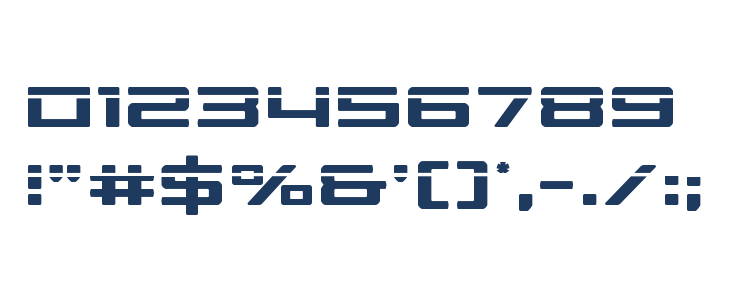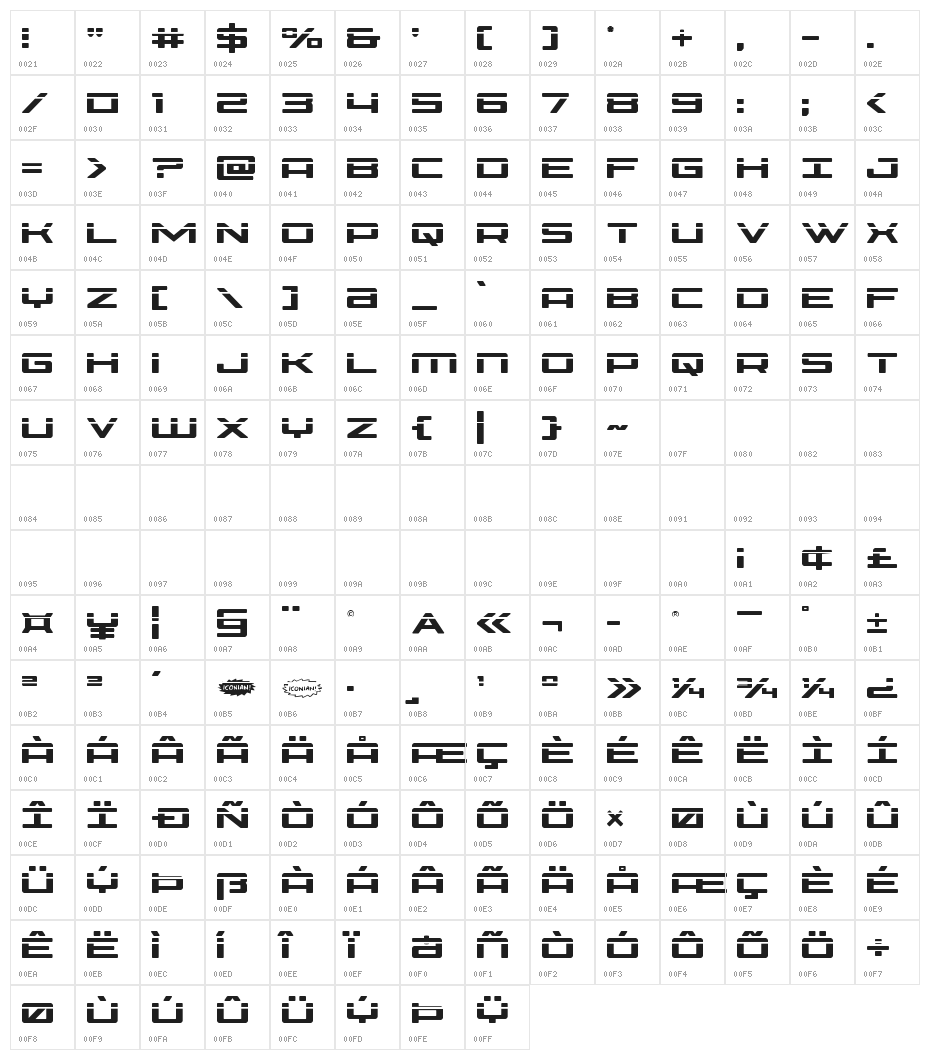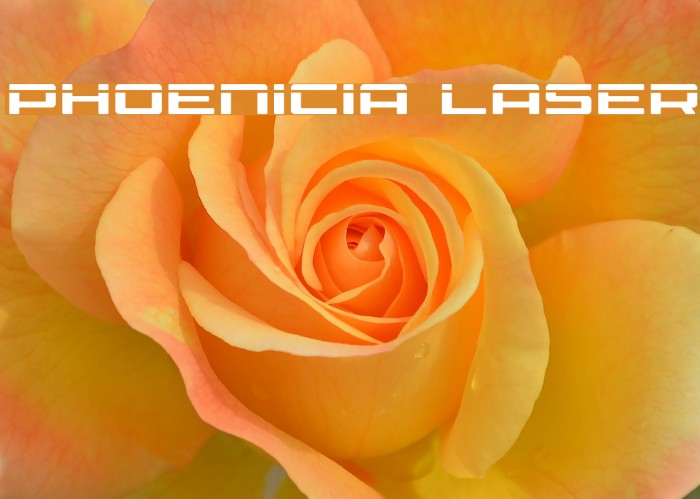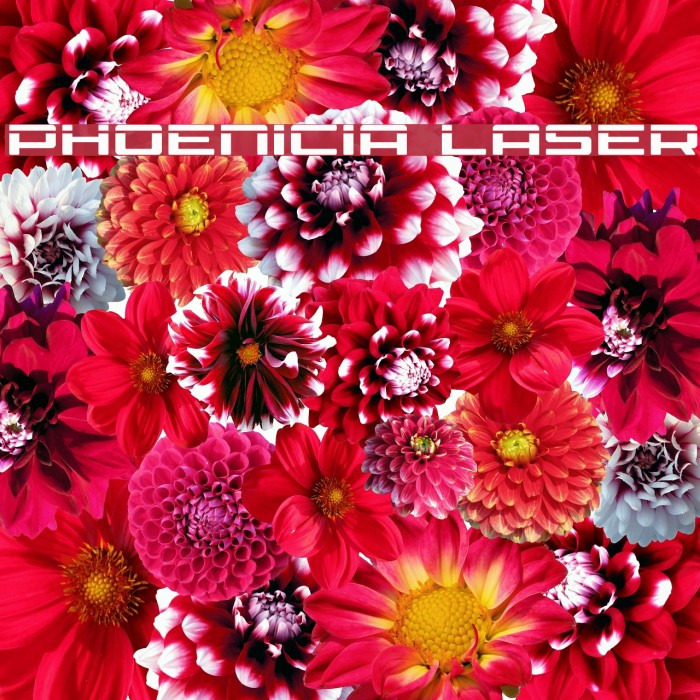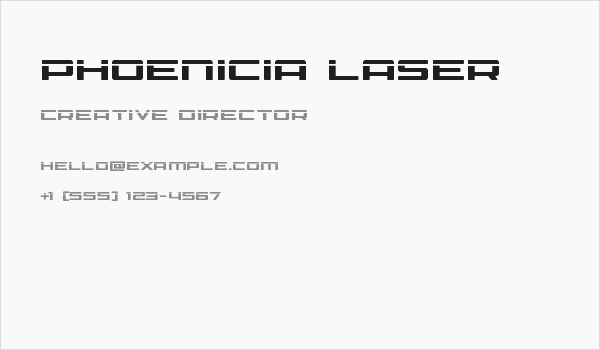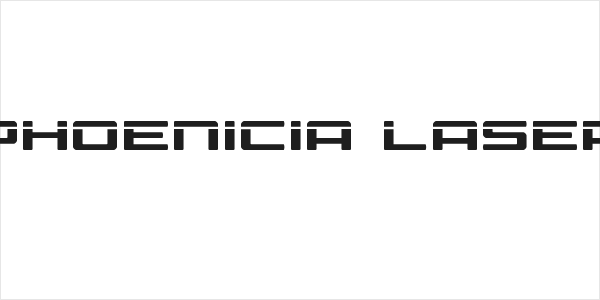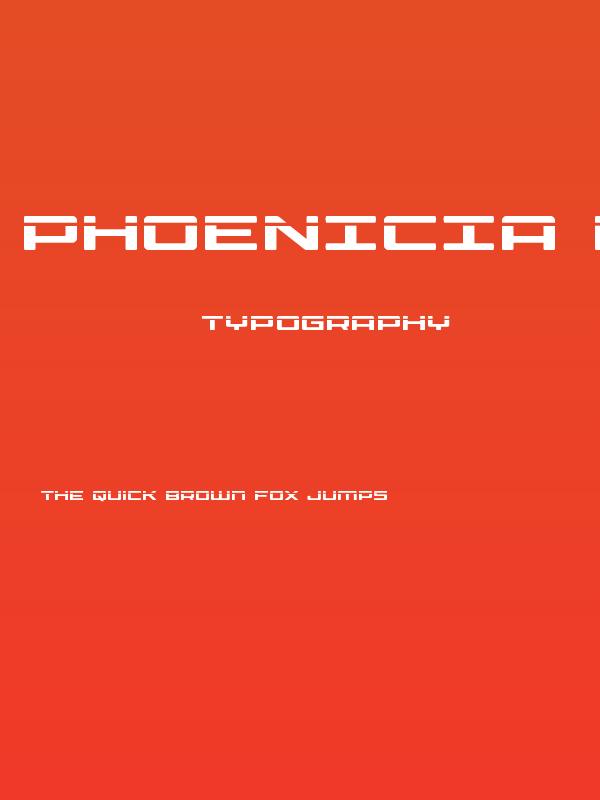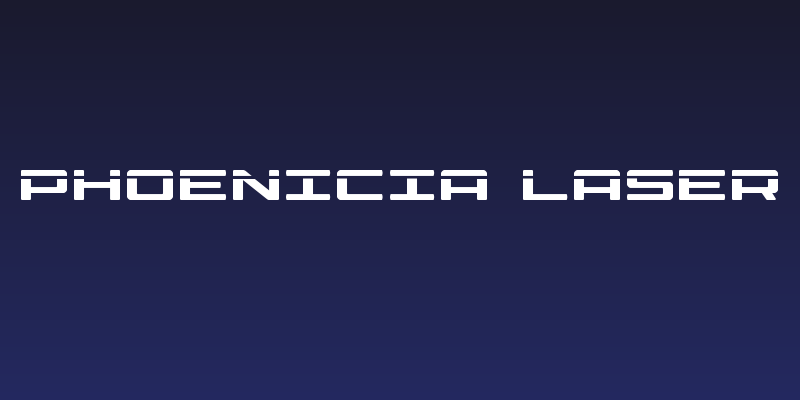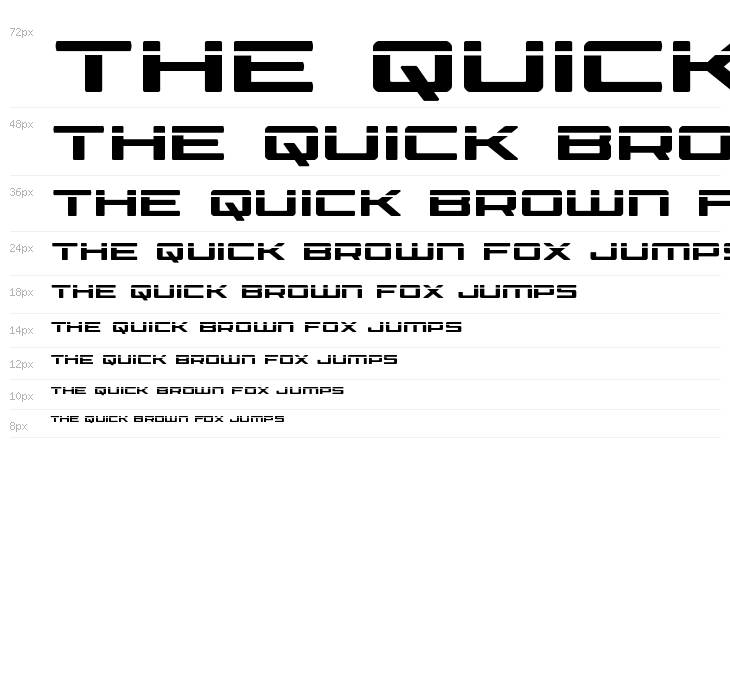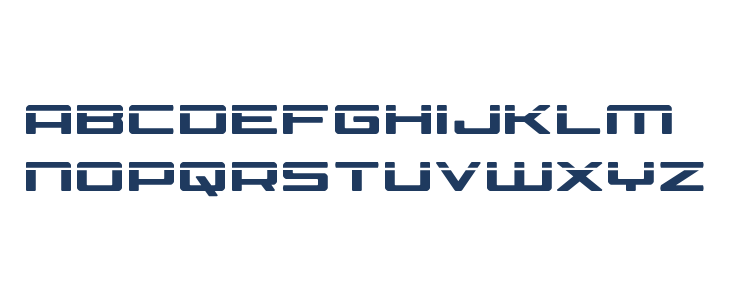
Phoenicia Laser Font
Phoenicia Laser Description
This font features a futuristic and geometric design, characterized by its bold, angular shapes and consistent stroke width. The characters are constructed with sharp, clean lines that give a sense of precision and modernity. The uppercase and lowercase letters maintain a uniform style, with the uppercase being slightly more pronounced. The numerals and special characters follow the same design principles, ensuring a cohesive look across all glyphs. This font's unique style makes it stand out, perfect for projects that require a modern and tech-savvy appearance.